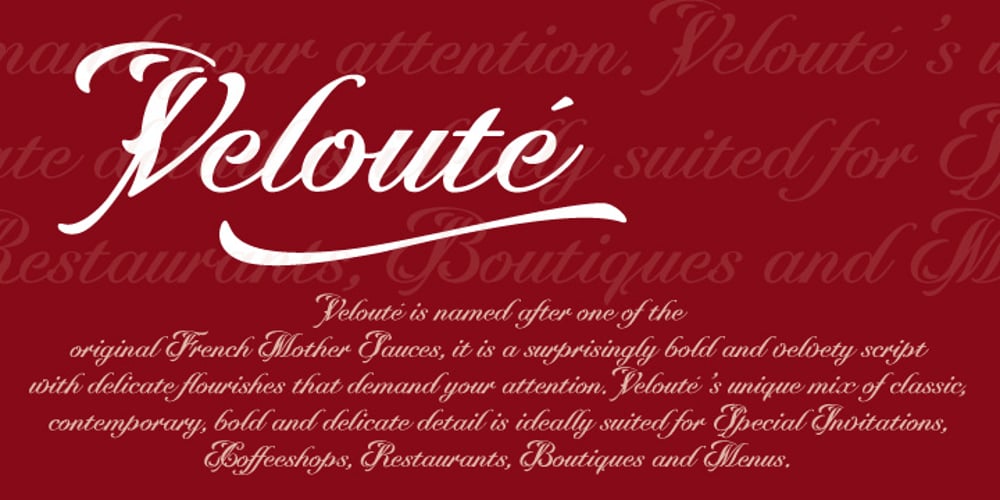
Velouté Font Family was designed by Robbie de Villiers and published by Wilton Foundry. Velouté contains 1 styles and family package options. Velouté is named after one of the original French Mother Sauces, it is a surprisingly bold and velvety script with delicate flourishes that demand your attention. Velouté’s unique mix of classic, contemporary, bold and delicate detail is ideally suited for Special Invitations, Coffee shops, Restaurants, Boutiques and Menus.